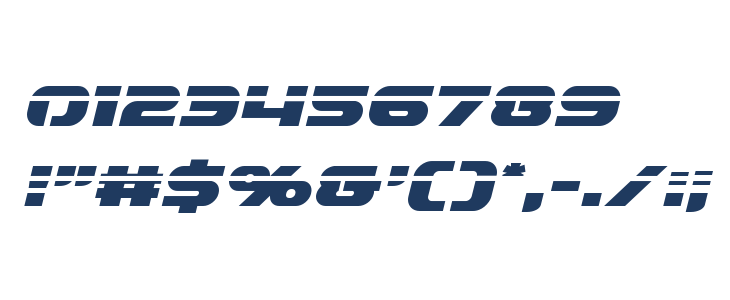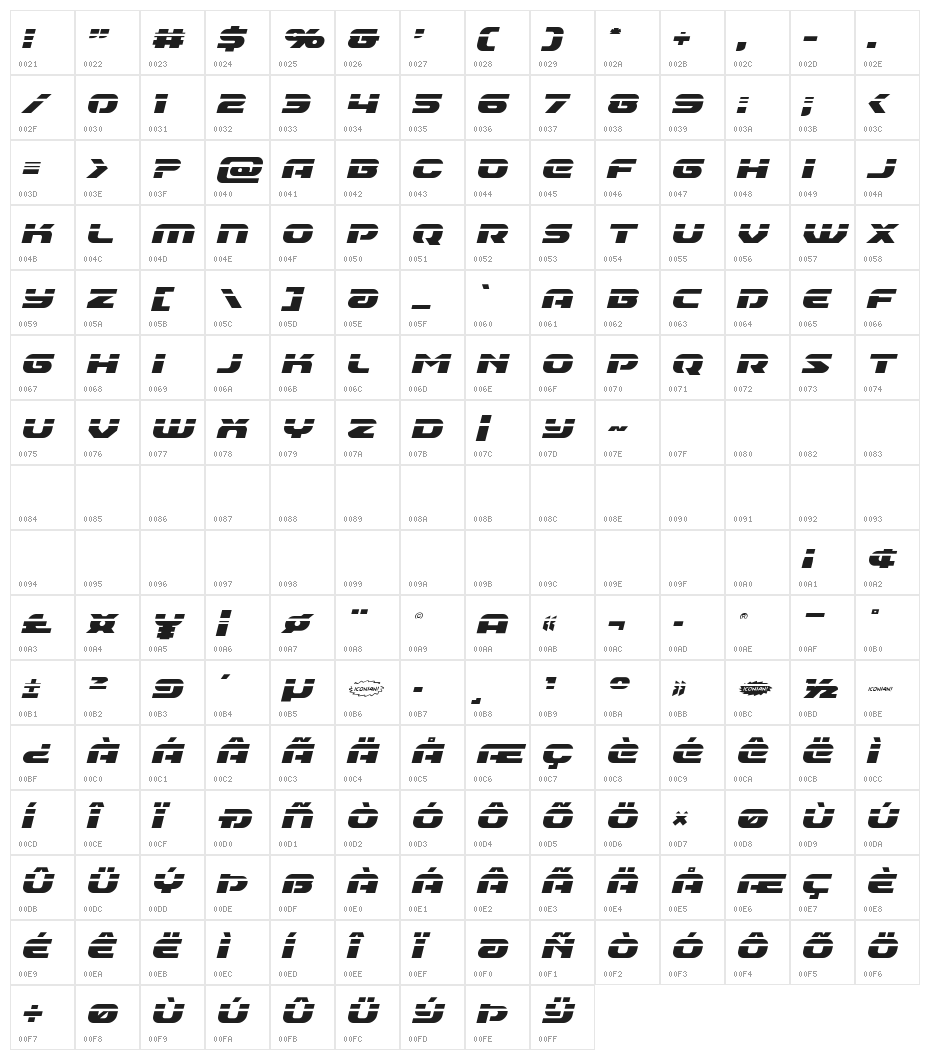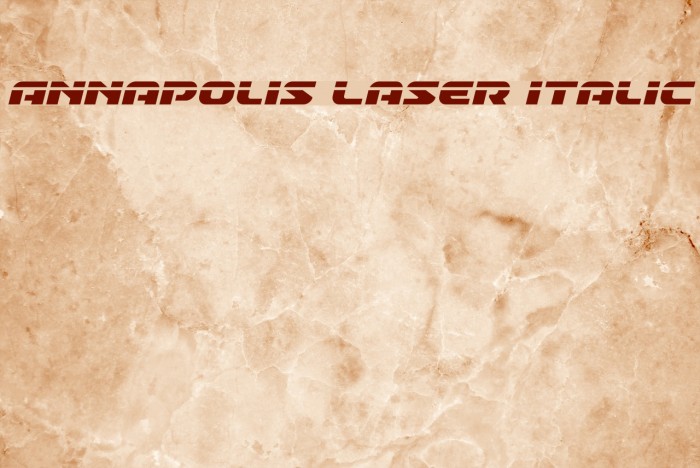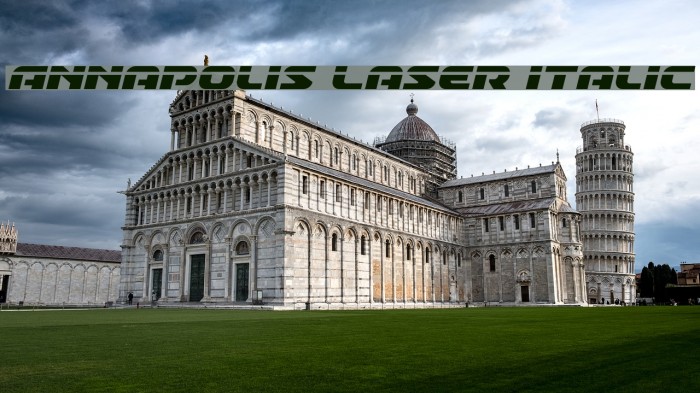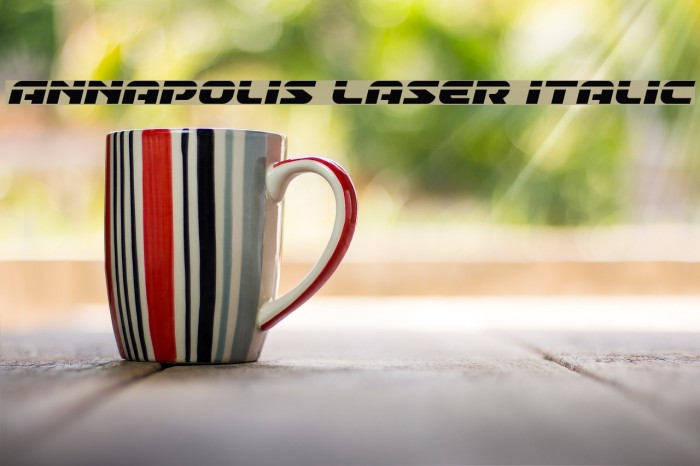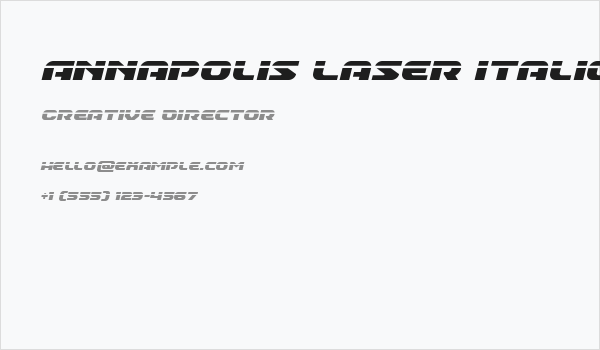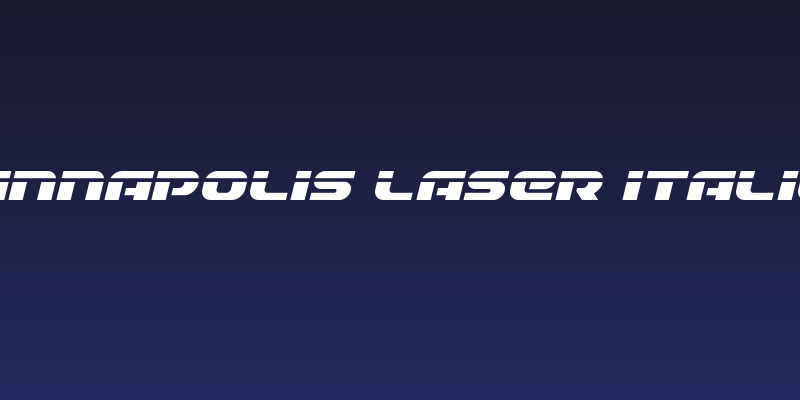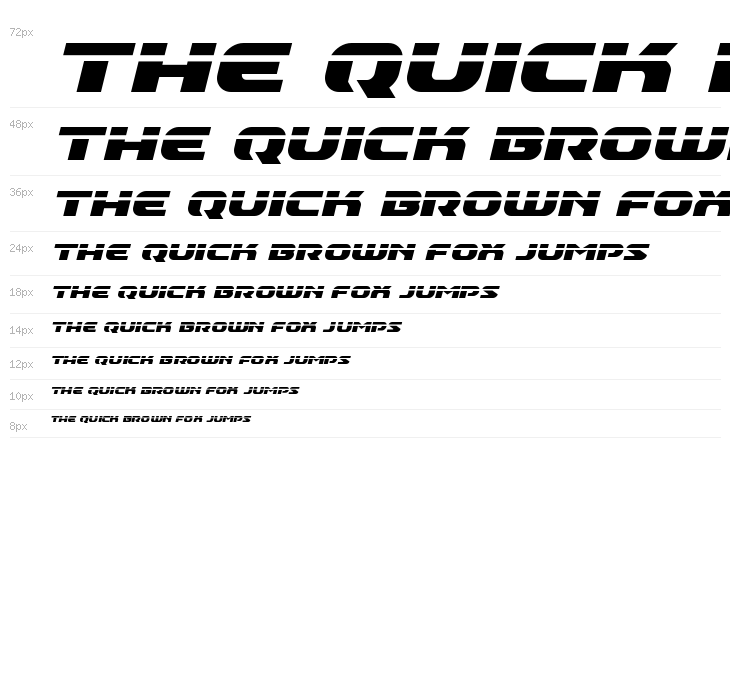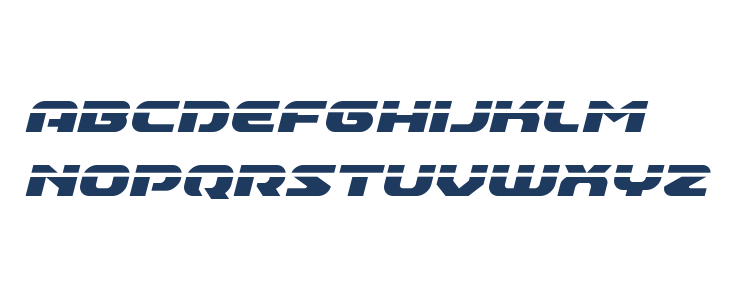
Annapolis Laser Italic Font
Annapolis Laser Italic Description
This font features a bold and futuristic design with a distinct italic slant, giving it a dynamic and forward-moving appearance. The characters are constructed with sharp, angular lines and geometric shapes, creating a sense of speed and modernity. The uppercase and lowercase letters maintain a consistent style, with the lowercase mirroring the uppercase in form and structure. Numbers and special characters are designed to match the overall aesthetic, ensuring uniformity across all elements. The font's unique style makes it stand out, ideal for projects that require a strong visual impact.